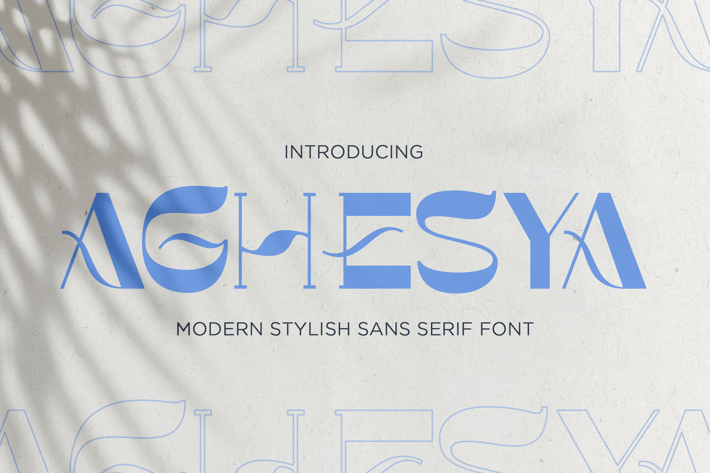
Aghesya - Modern Stylish Sans Serif Font
Go for a clean and sophisticated look.
Introducing Aghesya - A Modern Stylish Sans Serif Font.
Transform your brand's visual identity with the modern and stylish style of this font. Its streamlined characters make a lasting impression on logos, branding materials, and any project seeking a contemporary, understated touch. Enjoy!
Multilingual & Ligature Support
Full sets of Punctuation and Numerals